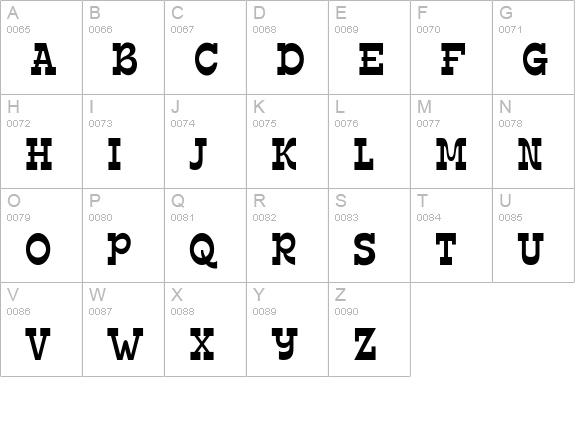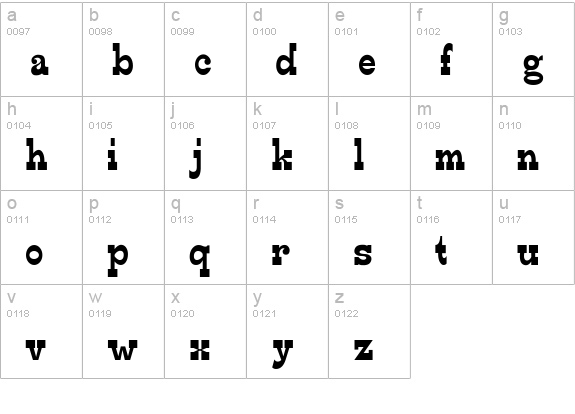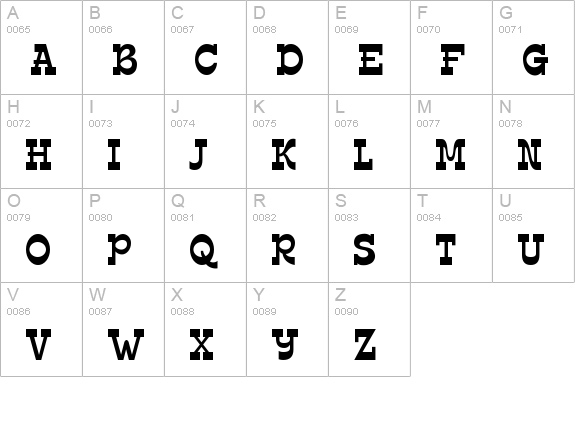
Edmunds Font Details
Edmunds font is a beautiful and versatile typeface that effortlessly blends elegance with modernity. Its clean lines and graceful curves make it suitable for a wide range of design projects, from branding and advertising to editorial layouts and website designs. With its wide range of weights and styles, Edmunds font offers endless possibilities for creative expression. Whether you're looking for a bold and impactful headline or a subtle and refined body text, this font has got you covered. Its carefully crafted letterforms ensure legibility and readability across different sizes and mediums. One of the best things about Edmunds font is that it is available for free download at FontsMarket.com. This means that designers, artists, and enthusiasts can easily access and use this fantastic font without any cost. The convenience of freely obtaining such a high-quality font adds immense value to any project, whether it's a personal endeavor or a professional assignment. So why wait? Discover the beauty and versatility of Edmunds font today. Download it for free at FontsMarket.com and elevate your designs to a whole new level of sophistication and finesse.